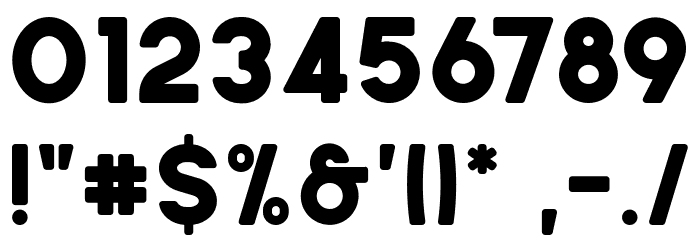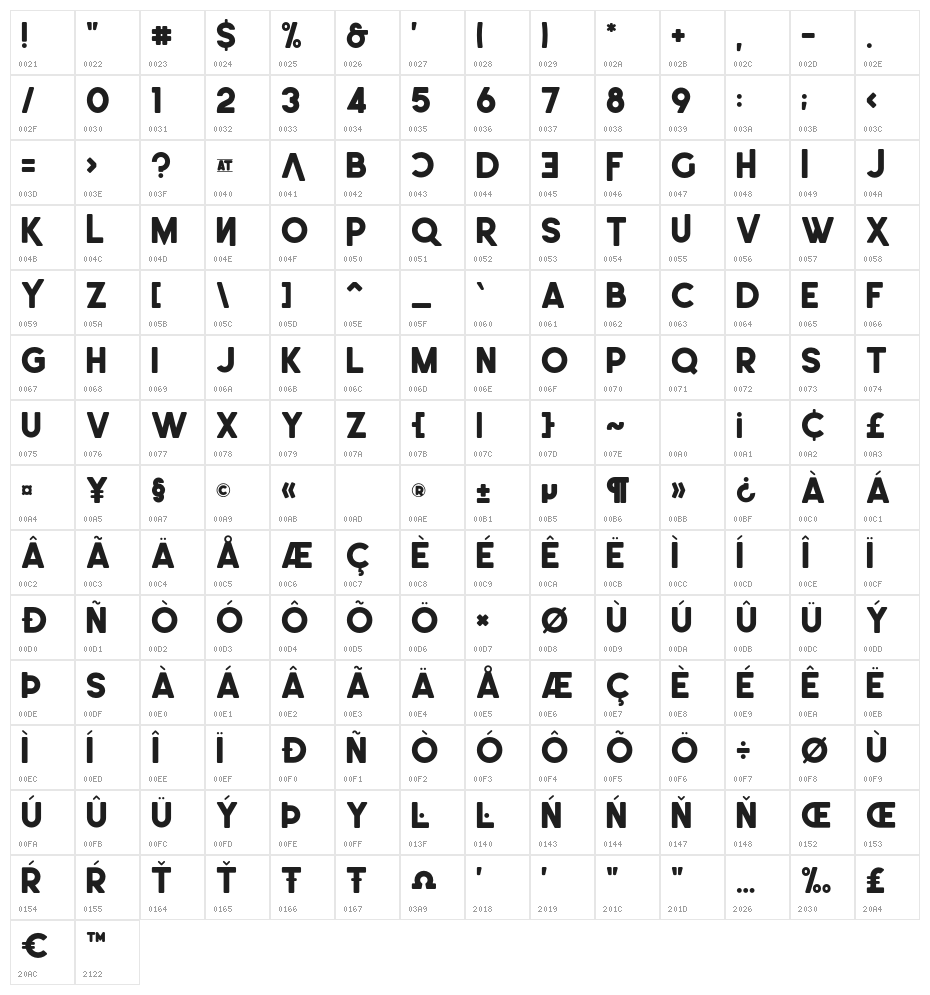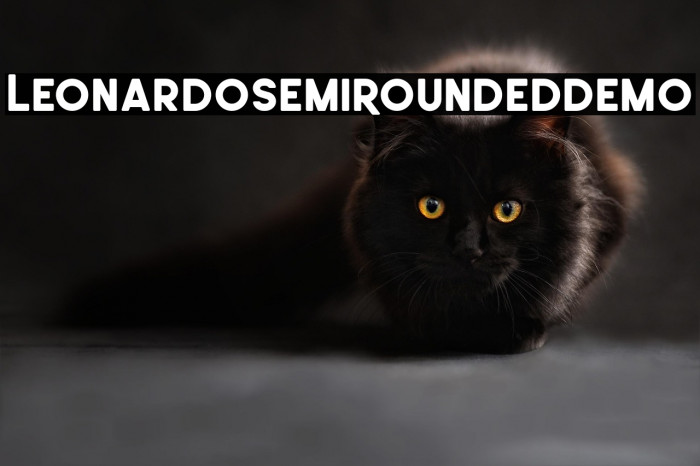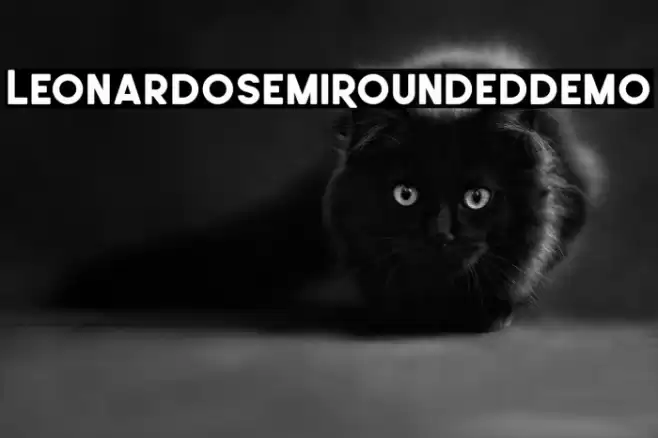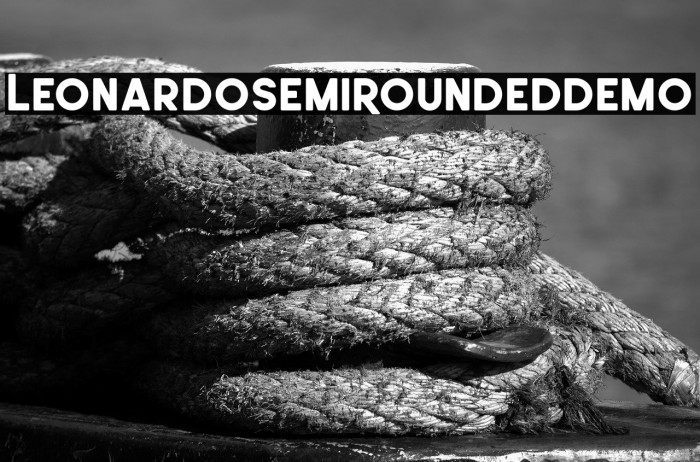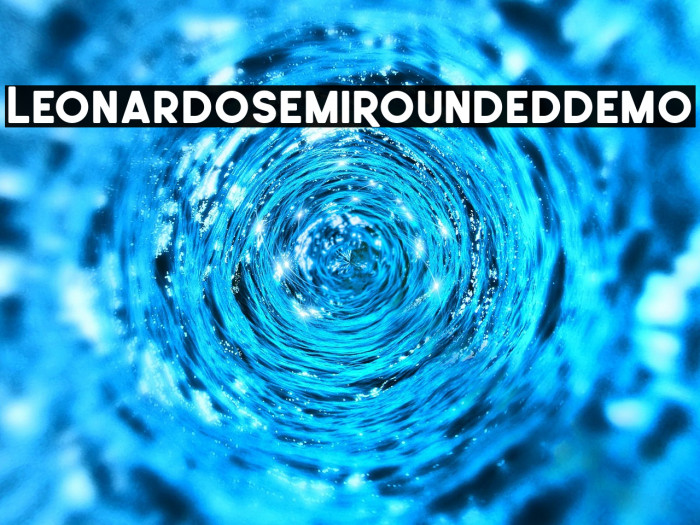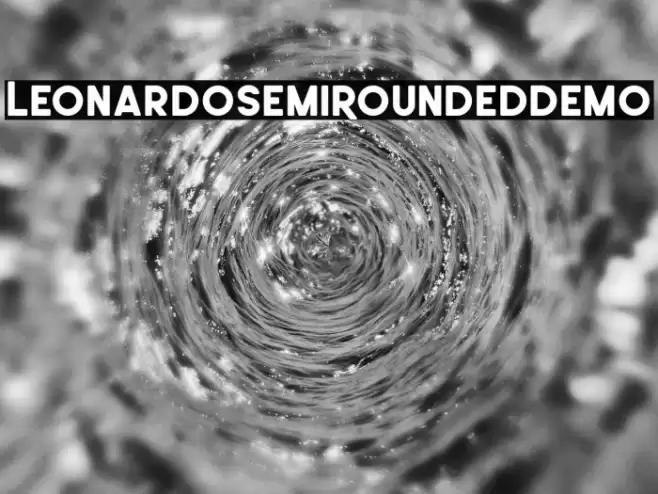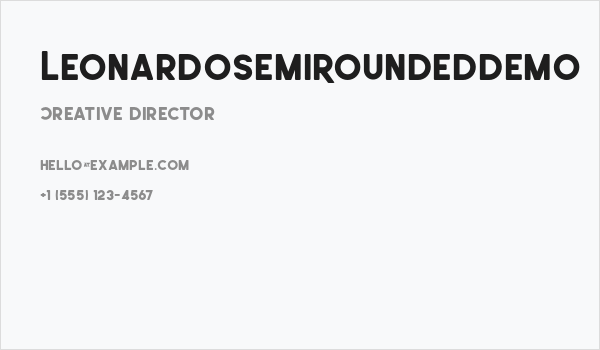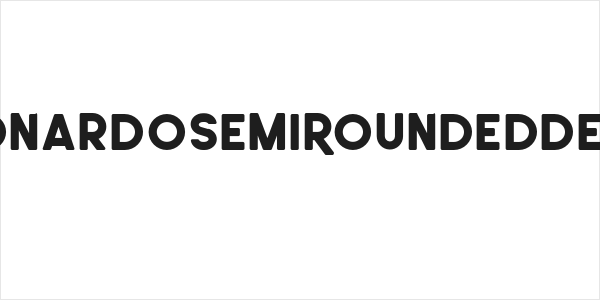
LeonardoSemiRoundedDemo Font
LeonardoSemiRoundedDemo Description
This typeface features a bold and modern design with semi-rounded edges that give it a friendly and approachable appearance. The characters are uniformly thick, providing a strong visual impact. The geometric shapes are clean and precise, with a consistent stroke width throughout. The uppercase and lowercase letters maintain a harmonious balance, while the numerals and special characters are designed to complement the overall style. This font is versatile, suitable for various design projects that require a contemporary and engaging look.
| Proposed Projects | Ideal for branding, advertising, headlines, posters, and digital media projects. |